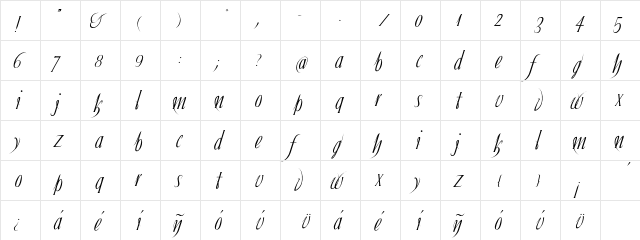
Ibleum Regular
Design Context for Ibleum Typeface
Ibleum is a composed and adaptable typeface that performs quietly and consistently across a wide range of design contexts.